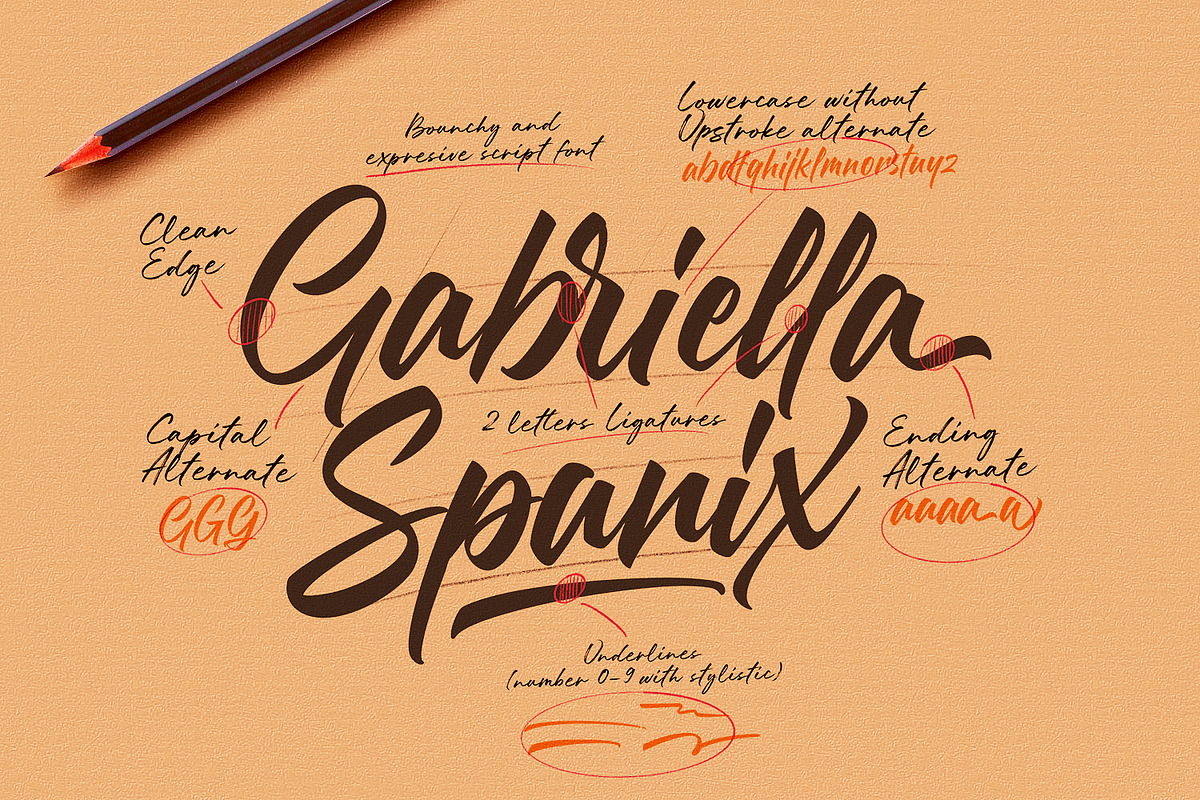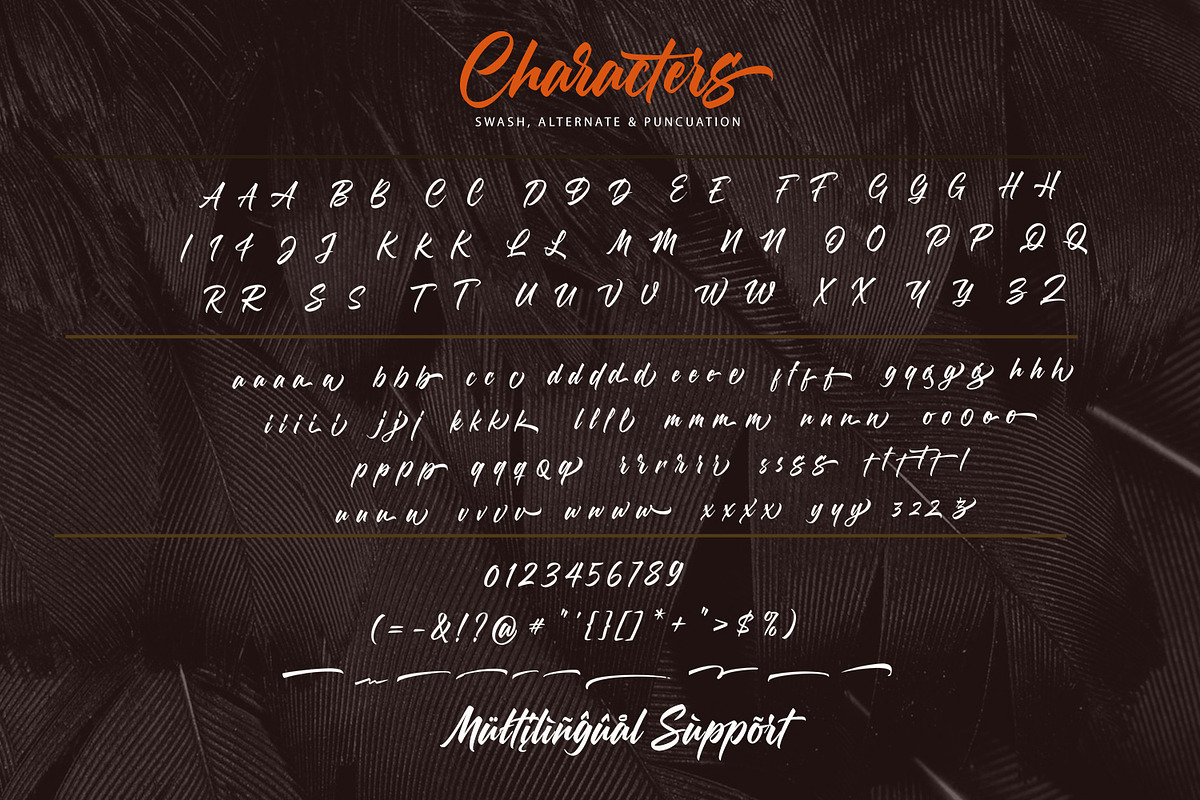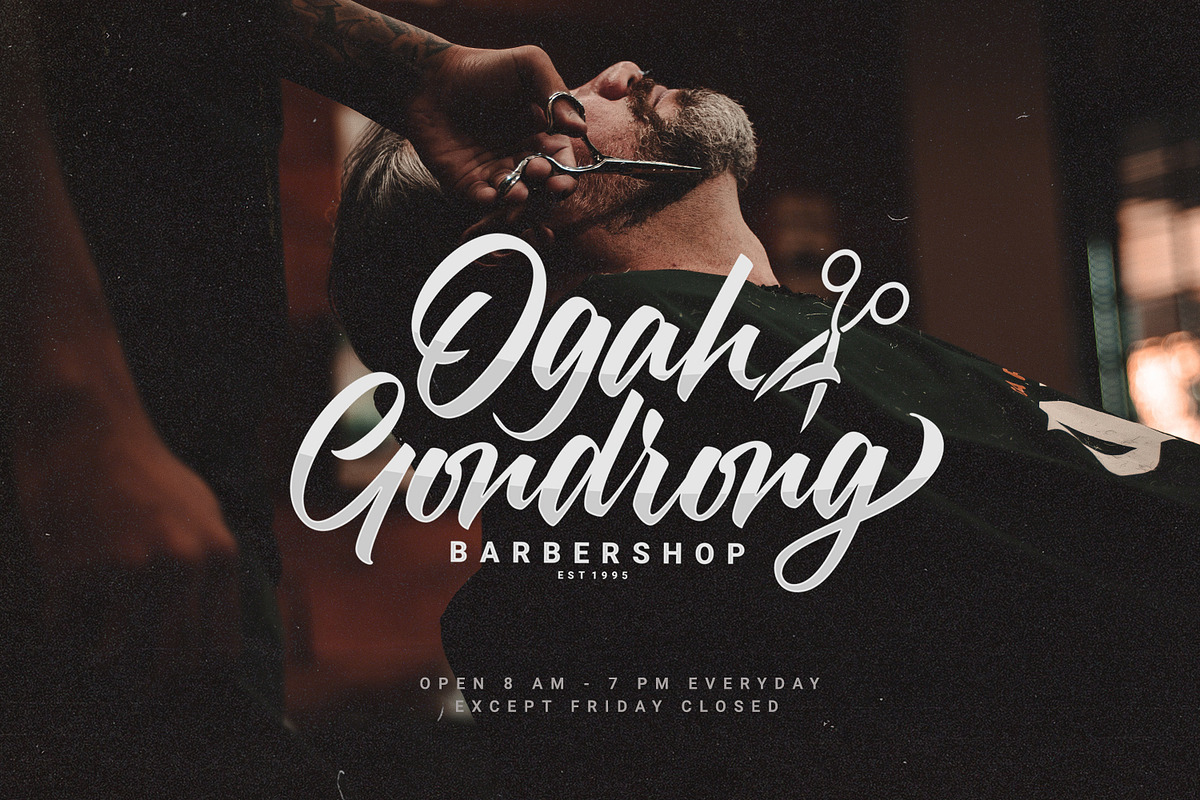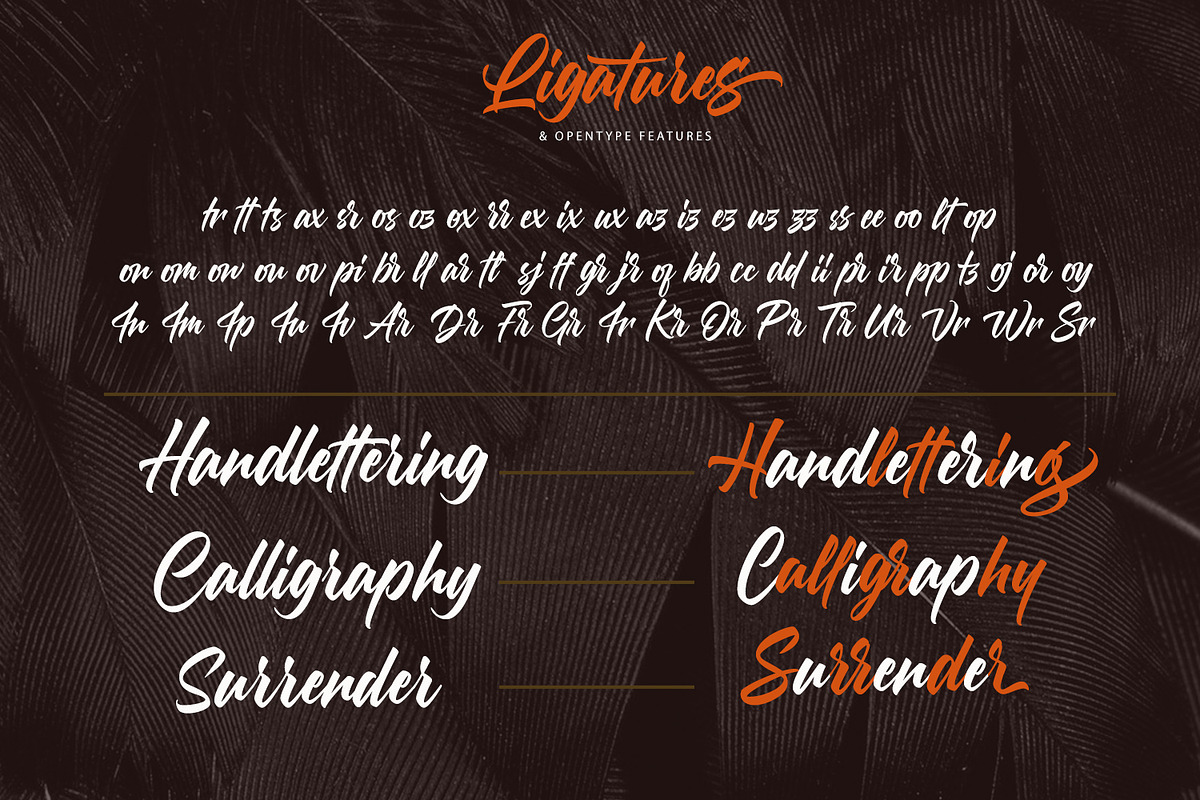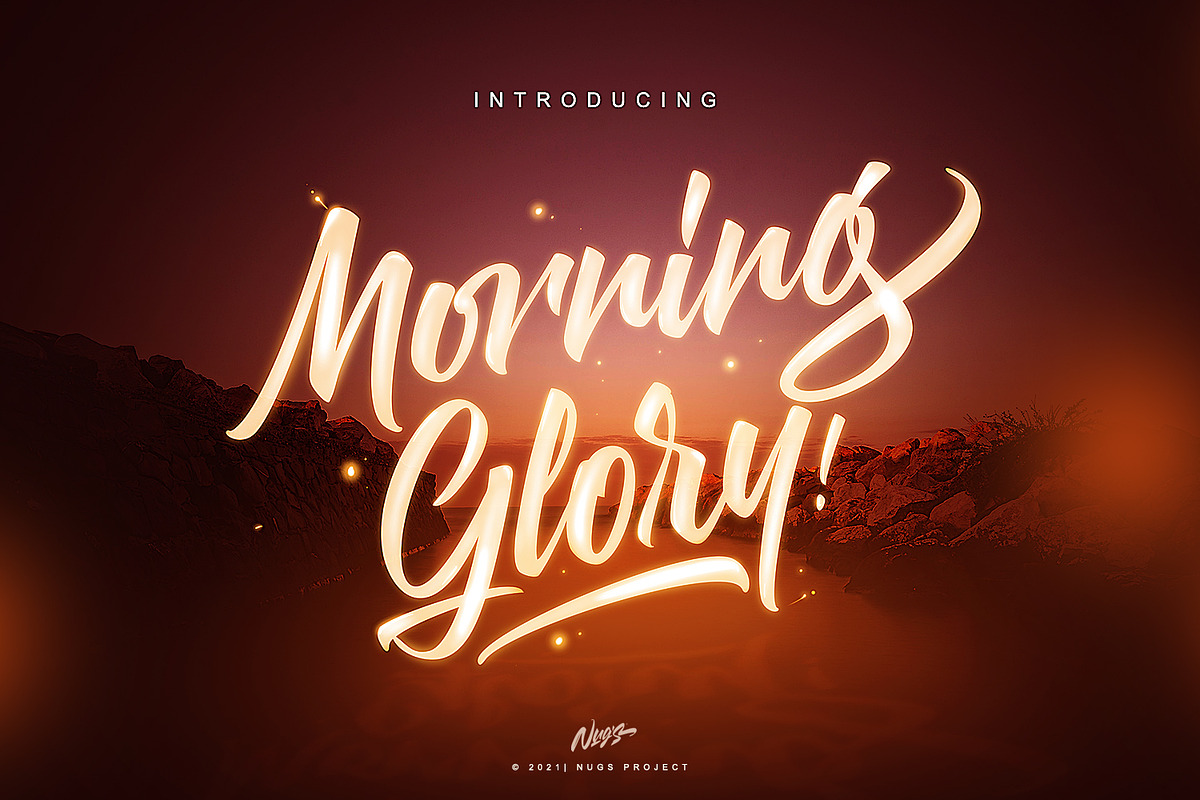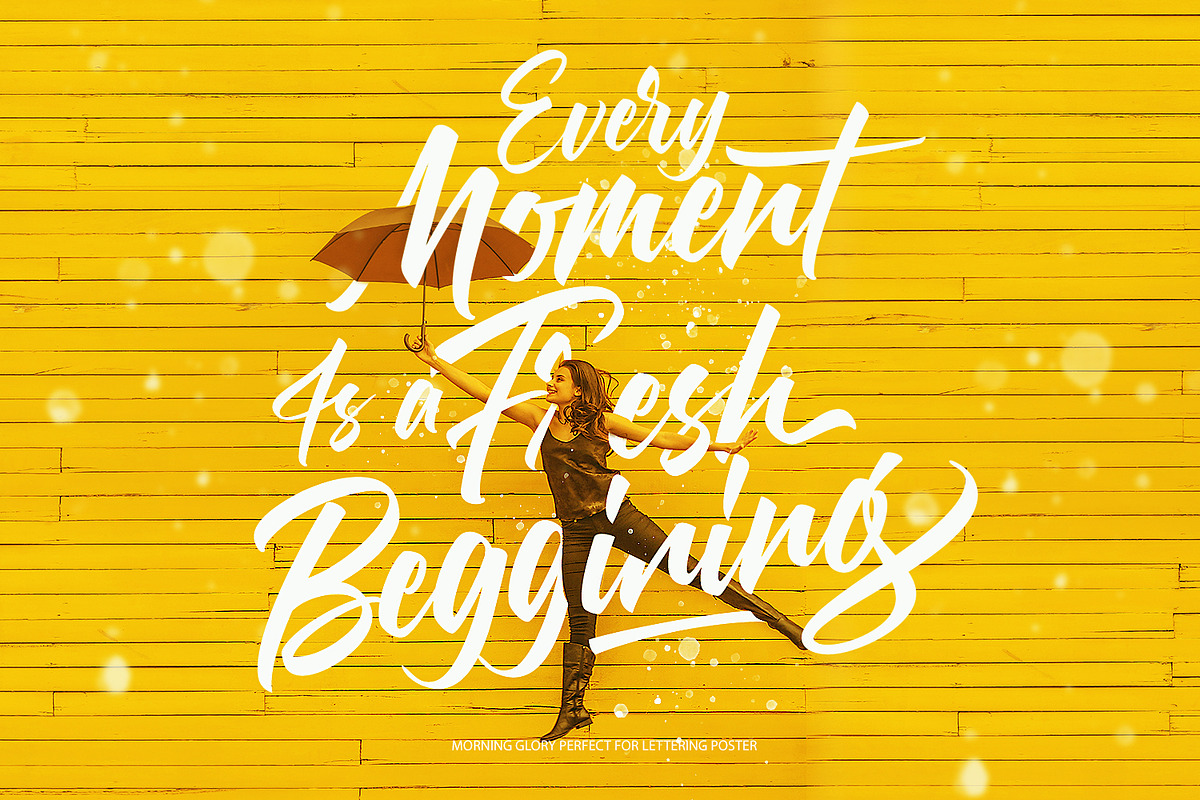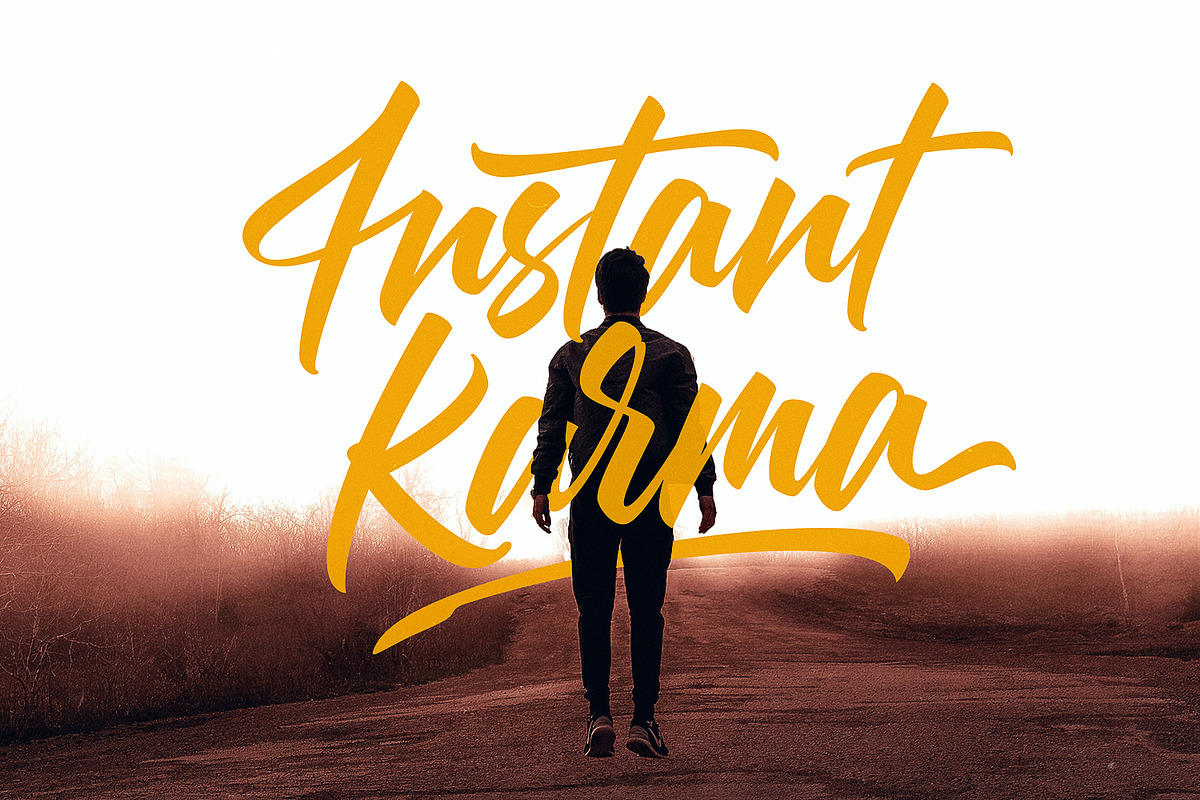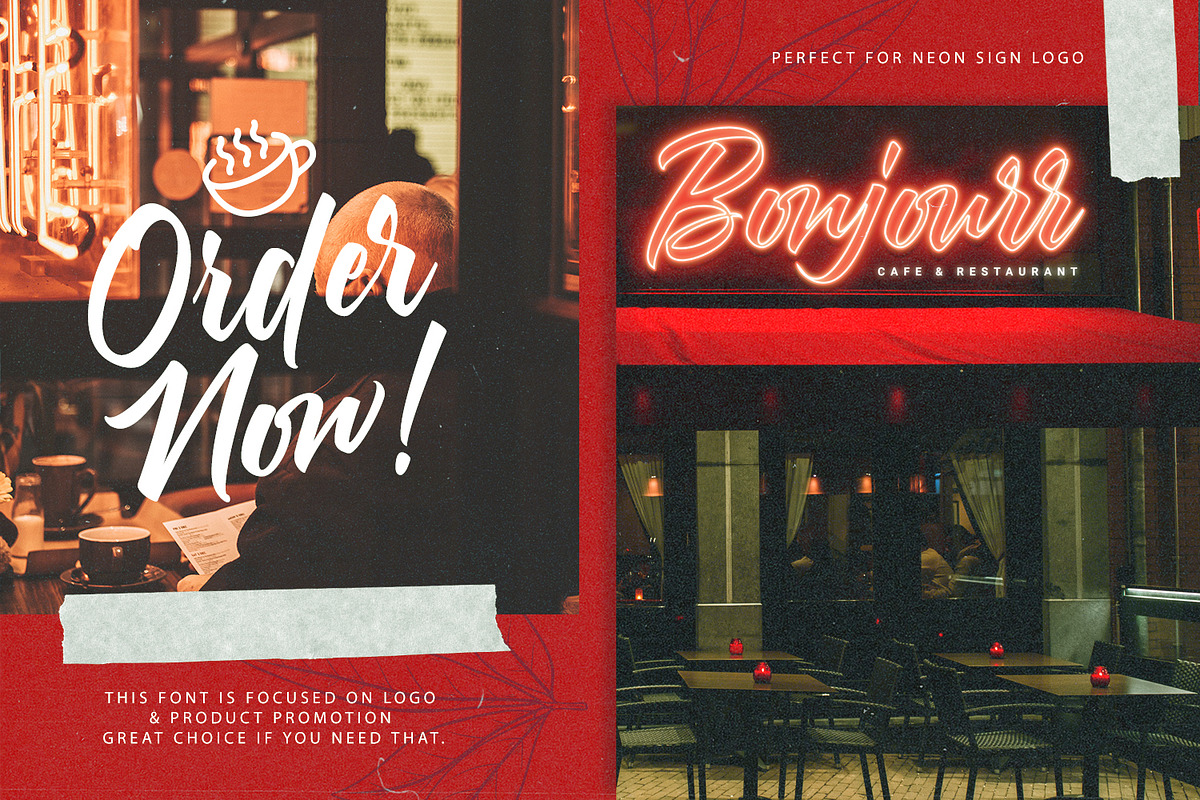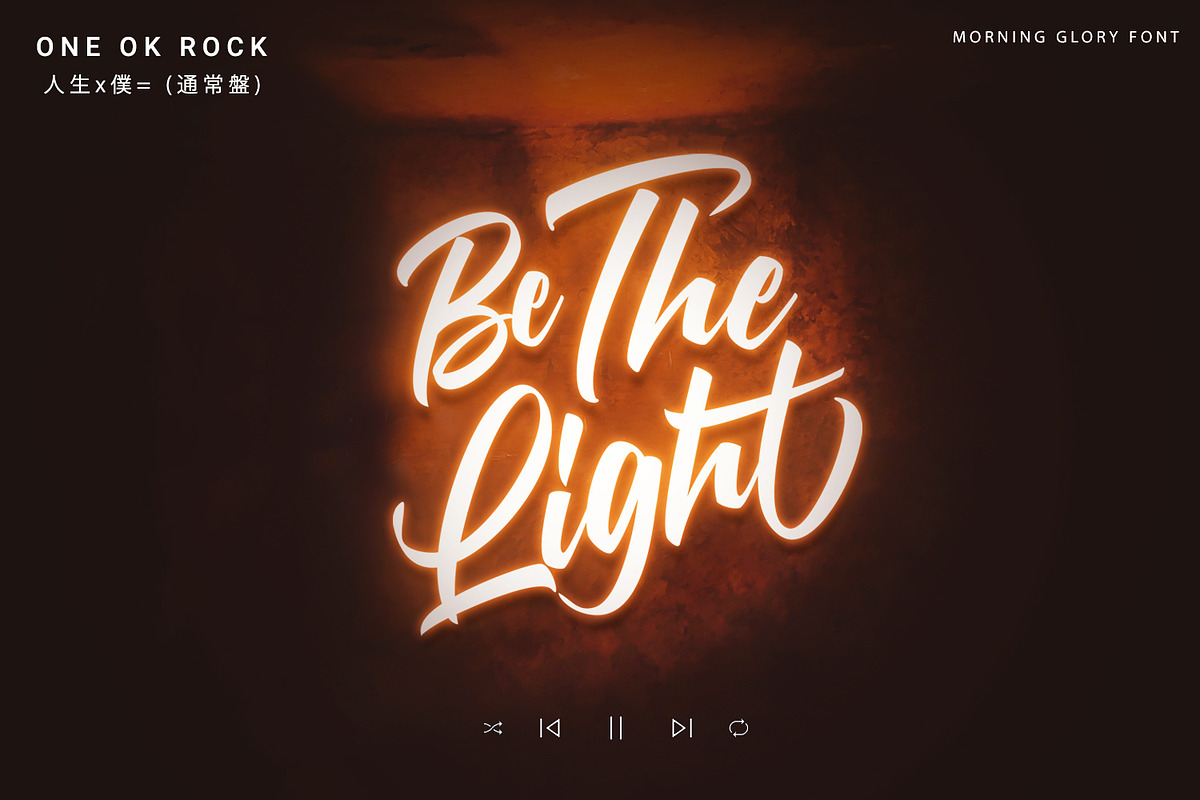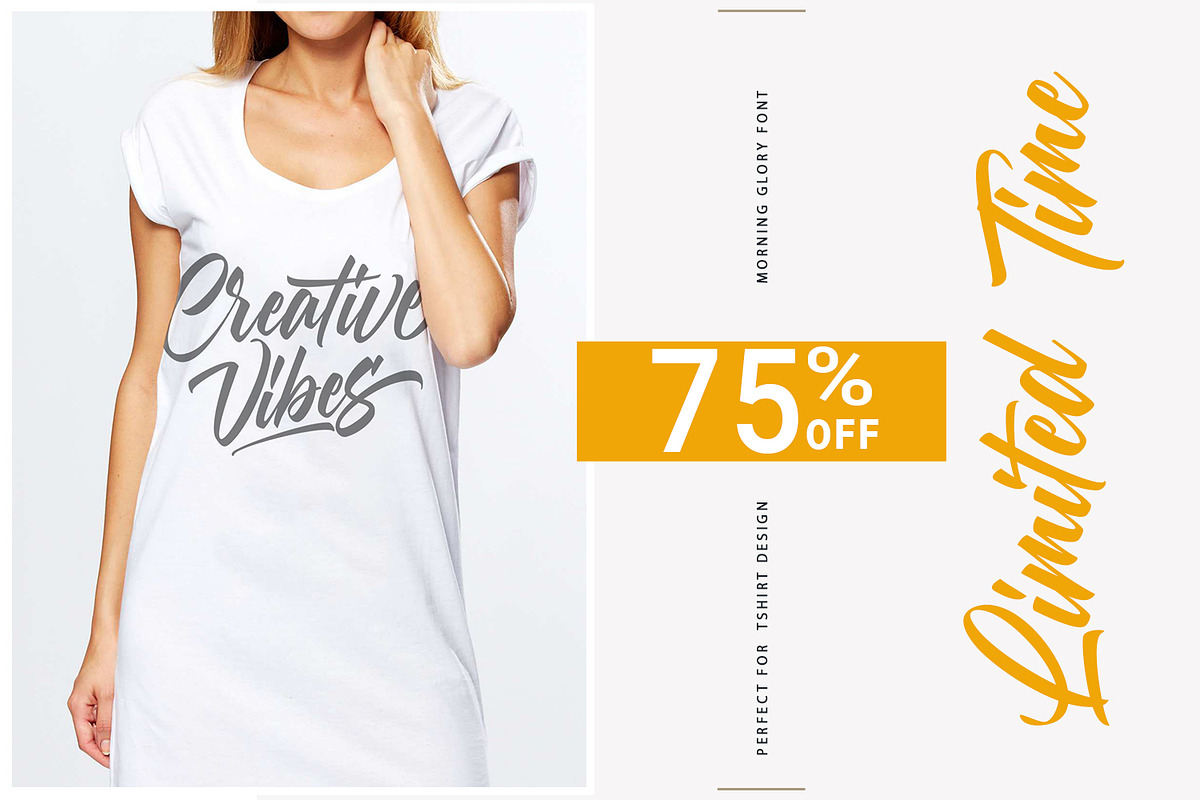
Morning Glory
Morning Glory is an amazing brush script font with a dynamic and energetic style. It can be used for various purposes such as titles, signatures, logotypes, t-shirt designs, letterheads, signage’s, labels, newsletters, posters, badges, and every other design which needs an unique, striking font.